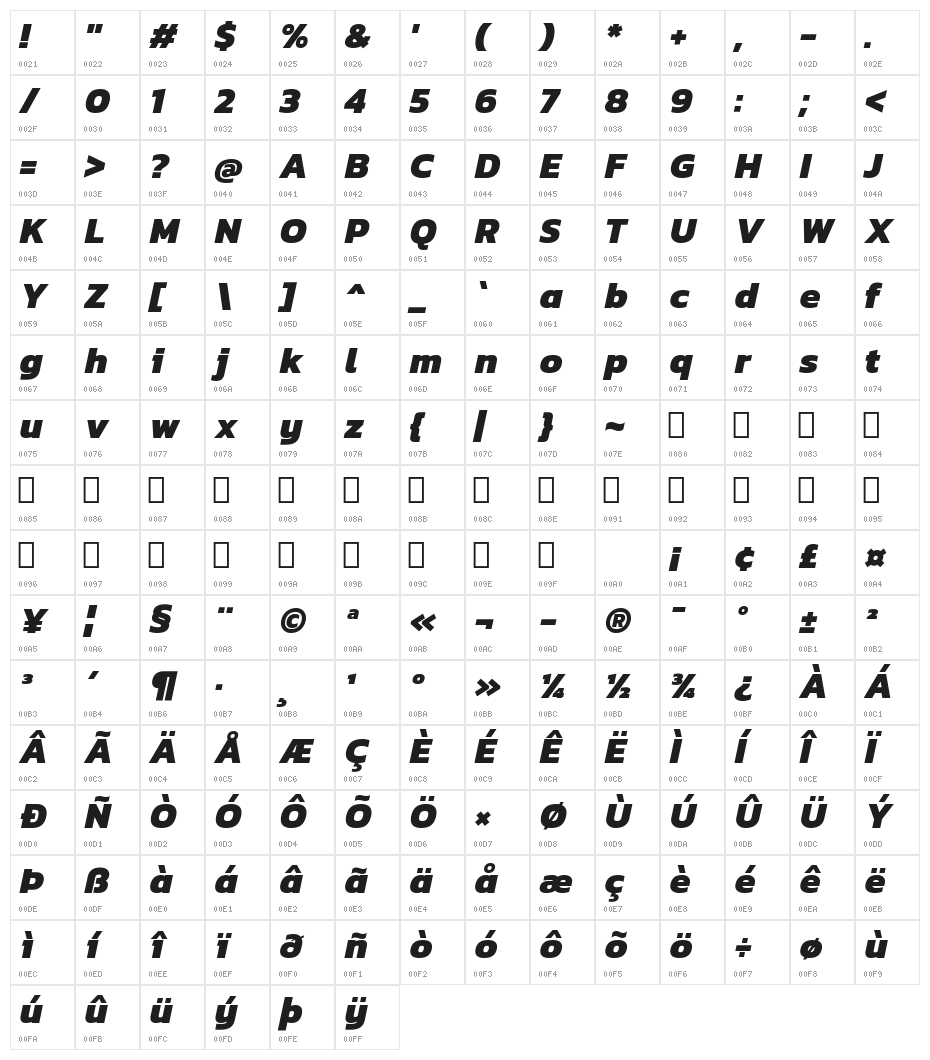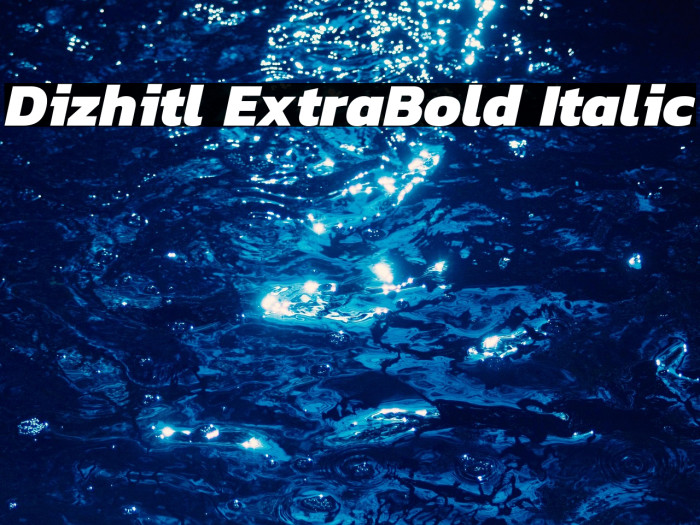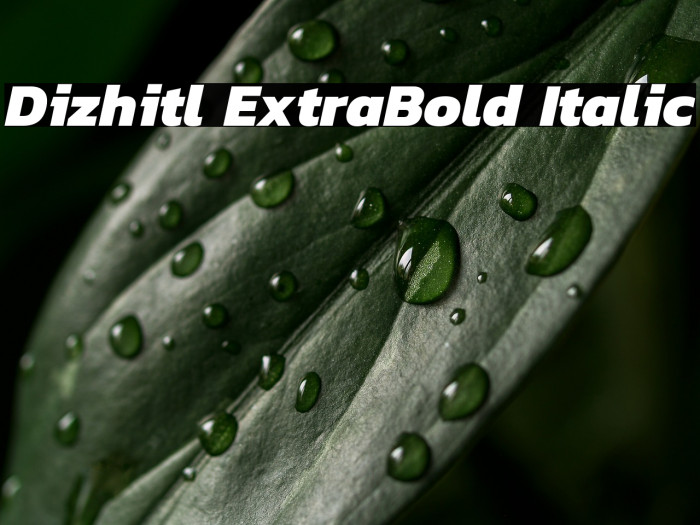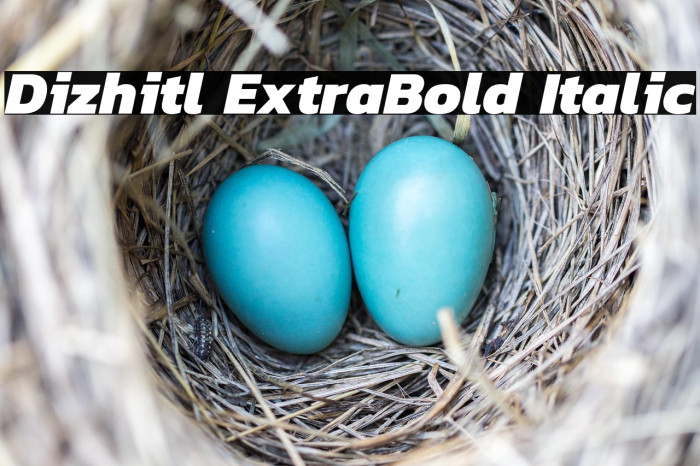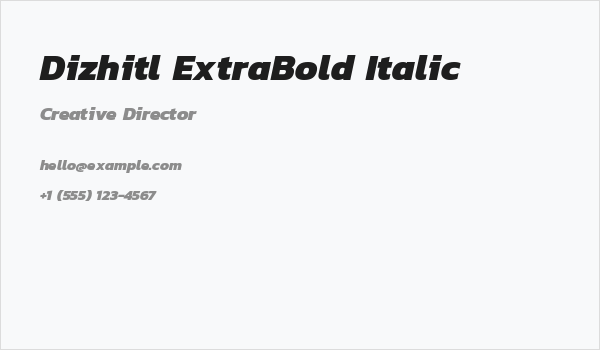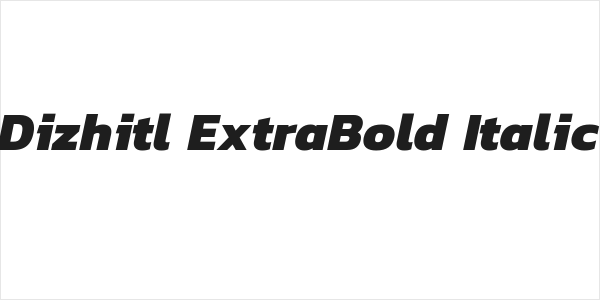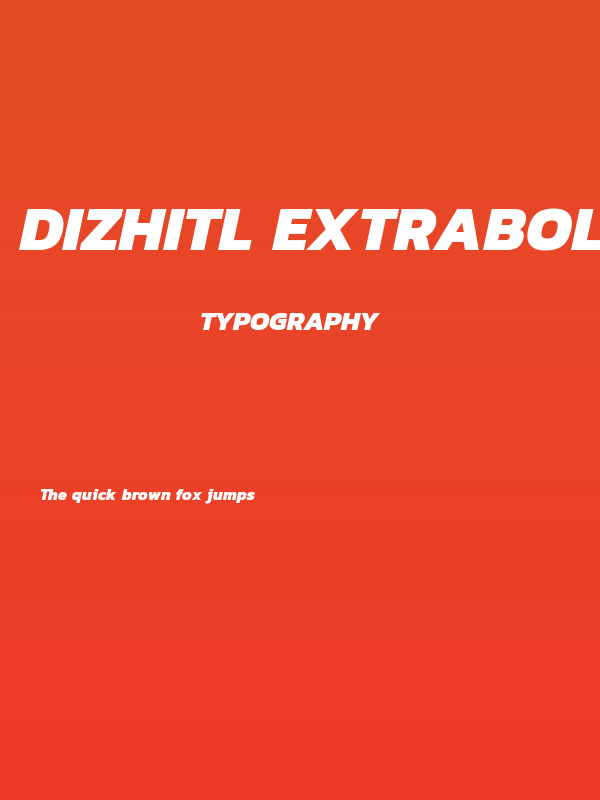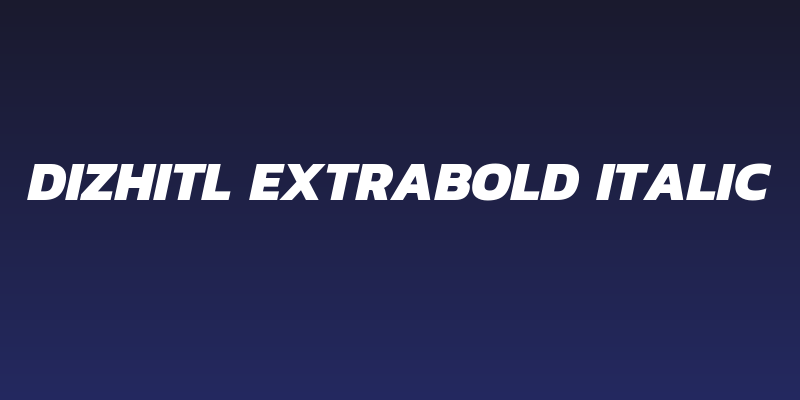
Dizhitl ExtraBold Italic Font
Dizhitl ExtraBold Italic Description
This font features a bold and italicized style, characterized by its strong presence and dynamic slant. The uppercase and lowercase letters are designed with a consistent weight, providing a cohesive look across all characters. The numbers and special characters maintain the same boldness, ensuring uniformity. The strokes are thick, contributing to a high contrast between the characters and the background. This font's italic nature adds a sense of movement and urgency, making it suitable for attention-grabbing designs.
| Proposed Projects | Ideal for headlines, posters, branding materials, and any design requiring a strong, impactful typeface. |